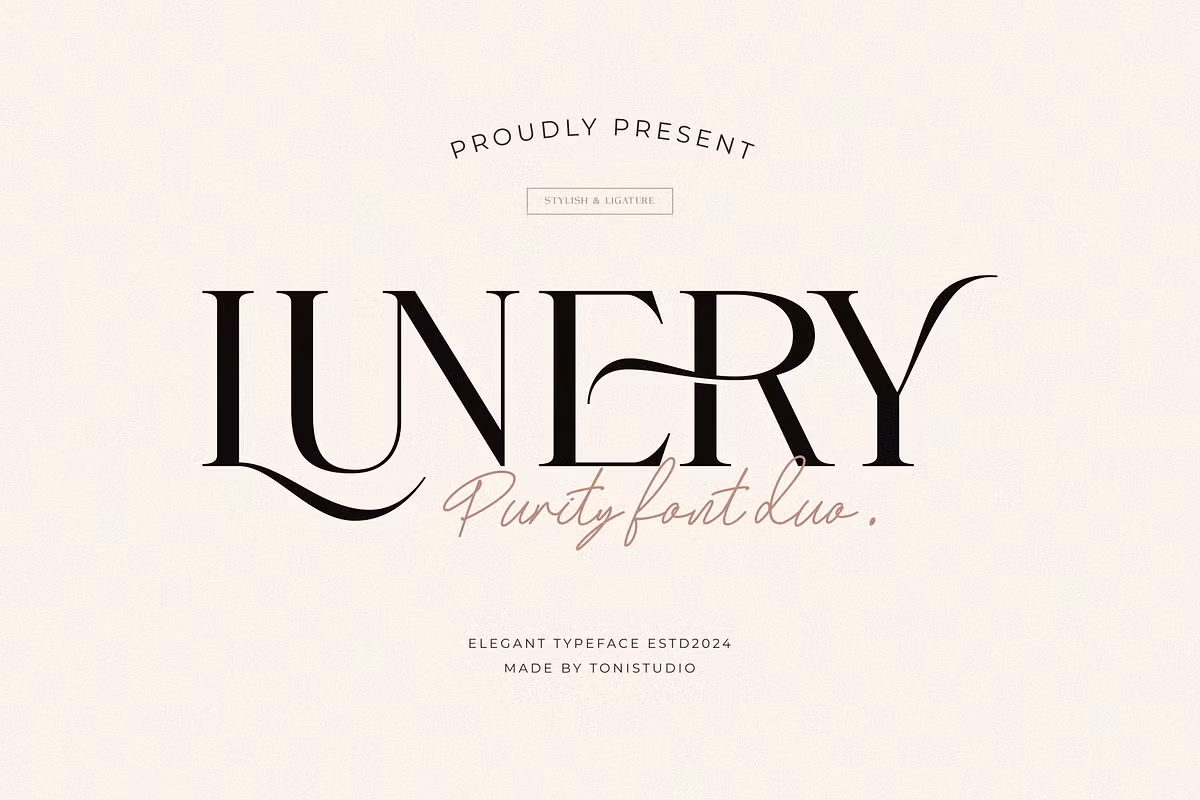
Bring fresh and elegant style to your designs with Lunery Purity || Modern Font Duo Free Download. This versatile font duo pairs a sleek, modern serif with a stylish, handwritten script, making it perfect for logos, branding, invitations, social media graphics, and any project that requires a blend of sophistication and creativity.
The Serif font offers clean lines and a refined look, while the Script font adds a personal, flowing touch. Together, they create a harmonious combination ideal for high-end branding and stylish designs. The duo includes uppercase and lowercase letters, numerals, punctuation, and multilingual support—giving you flexibility to experiment with various layouts.